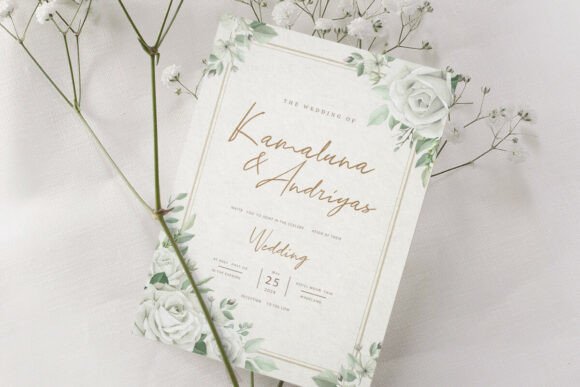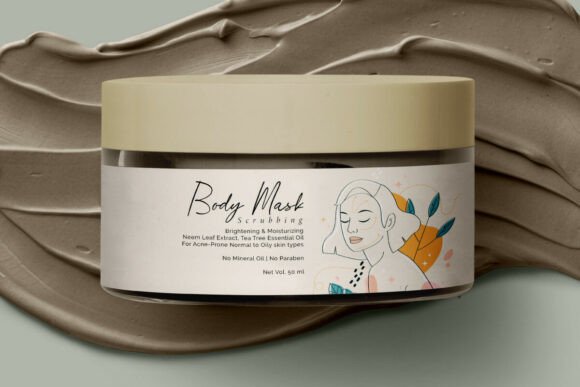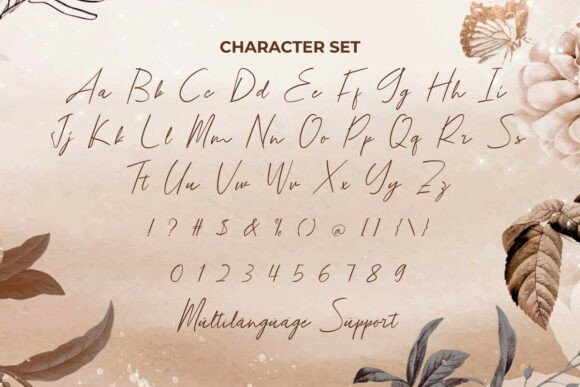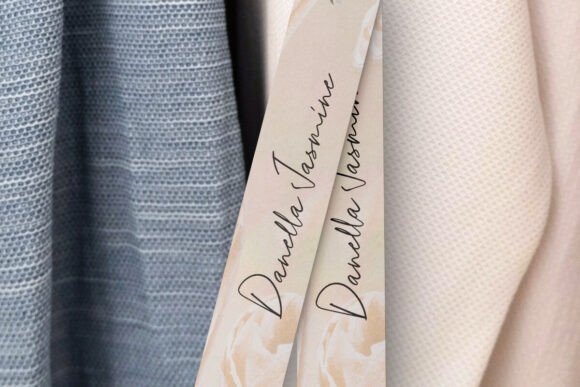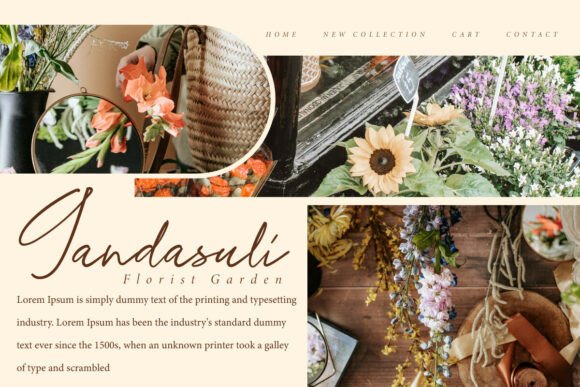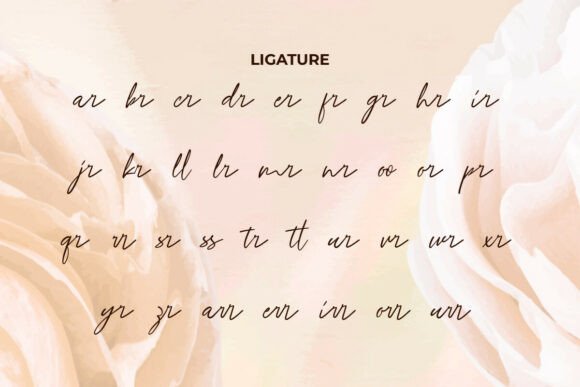
Introducing the Danella Jasmine Font: Elevate Your Designs with Botanical Elegance
Are you looking for a font that embodies the essence of luxury, elegance, and botanical beauty? Look no further than the Danella Jasmine font. This exquisite script typeface is designed to infuse your projects with a touch of refinement and sophistication, making it perfect for high-end beauty branding, wedding invitations, and luxury floral design.
The Inspiration Behind Danella Jasmine
The Danella Jasmine font draws inspiration from the natural world, featuring fine-lined, rhythmic strokes that mimic the effortless flow of a vine. Its elongated forms and delicate connections create a sense of movement and grace, evoking the beauty of botanical elements. This elegant script typeface is sure to captivate your audience and leave a lasting impression.
Perfect for Luxury Designs
The Danella Jasmine typeface is tailor-made for designers and crafters who want to create high-end, luxurious designs. Its sophisticated and refined aesthetic makes it an ideal choice for:
- High-end beauty branding: Elevate your brand with a font that exudes luxury and sophistication.
- Wedding invitations: Create stunning wedding invitations that set the tone for a romantic and elegant celebration.
- Luxury floral design: Add a touch of elegance to your floral designs with a font that complements the beauty of nature.
Design Tips and Pairing Suggestions
To take your designs to the next level, consider pairing the Danella Jasmine font with soft watercolor textures or botanical illustrations. This will allow the script to weave through the design, creating a seamless and organic look. The delicate connections and flowing strokes of the font will dance across the page, adding a touch of whimsy and romance to your design.
Accessibility and Convenience
The Danella Jasmine font comes with PUA encoding, making all special characters and decorative elements easily accessible without additional software. This means you can focus on creating stunning designs without worrying about complicated technicalities.
Why Choose Danella Jasmine?
So why choose the Danella Jasmine font for your next project? Here are just a few reasons:
- Elegant and sophisticated: The Danella Jasmine font exudes luxury and refinement, making it perfect for high-end designs.
- Botanical inspiration: The font’s natural, flowing strokes evoke the beauty of botanical elements, adding a touch of organic elegance to your designs.
- Versatile: The Danella Jasmine font can be used for a range of projects, from beauty branding to wedding invitations and floral design.
- Easy to use: With PUA encoding, all special characters and decorative elements are easily accessible, making it simple to create stunning designs.
If you’re looking for a font that will elevate your designs and add a touch of botanical beauty, look no further than the Danella Jasmine font. Its elegant script typeface, fine-lined strokes, and delicate connections make it perfect for high-end beauty branding, wedding invitations, and luxury floral design. With its PUA encoding and versatility, this font is sure to become a staple in your design collection.